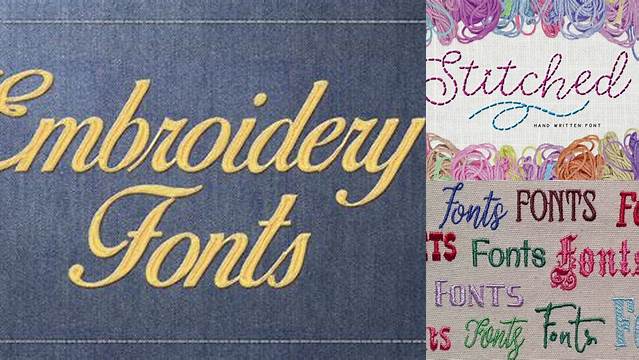
Best Hand Embroidery Fonts: Free Downloads
Hey guys! Are you looking to add a personal touch to your embroidery projects? One of the best ways to do that is by using unique and beautiful fonts. Finding the perfect font can really elevate your designs, making them stand out and feel extra special. So, let's dive into the world of hand embroidery fonts and where you can find some amazing free downloads. This article will cover everything you need to know about best hand embroidery fonts, helping you create stunning projects every time.
Hand Embroidery Fonts: An Overview
When we talk about hand embroidery fonts, we're referring to the different styles of lettering that can be stitched onto fabric. Unlike digital fonts, these are created by hand, stitch by stitch, giving them a unique, handmade quality. The best part? There's a font style for every project, from elegant scripts to playful block letters. Understanding the basics of hand embroidery fonts is crucial for selecting the right one for your needs. Whether you're personalizing a gift, creating wall art, or embellishing clothing, the font you choose can make a significant impact. We’ll explore various types of fonts, their characteristics, and how to use them effectively in your projects. Trust me; having a good grasp of these basics will take your embroidery to the next level. Think of it as adding your personal signature to each piece you create, making it truly one-of-a-kind. Plus, the possibilities are endless when you start experimenting with different styles and techniques. Let’s get started and discover the beautiful world of hand embroidery fonts!
Why Choose Hand Embroidery Fonts?
Why should you even bother with hand embroidery fonts when there are so many other options? Well, the charm of hand embroidery fonts lies in their handcrafted feel. They add a personal touch that you just can't get from machine-made designs. Imagine stitching a heartfelt message onto a baby blanket or a custom name on a tote bag. These are the kinds of details that make your projects truly special. Beyond the personal touch, hand embroidery fonts allow for a level of customization that's hard to match. You can adjust the size, thickness, and spacing of your letters to fit your design perfectly. Plus, you can mix and match different stitches to create unique textures and effects. In short, hand embroidery fonts are all about creativity and making your projects your own. It's about infusing your personality and style into every stitch. And let's be honest, there's something incredibly satisfying about creating something beautiful with your own two hands. It’s a way to slow down, relax, and enjoy the process of creating. So, if you're looking for a way to add that extra layer of thoughtfulness and care to your projects, hand embroidery fonts are the way to go.
Where to Find Free Hand Embroidery Fonts
Different Styles of Hand Embroidery Fonts
The world of hand embroidery fonts is vast and varied, offering a style for every project and personal taste. Let's take a look at some of the most popular styles you'll encounter. First, we have script fonts, which mimic the elegant flow of handwriting. These are perfect for adding a touch of sophistication to your embroidery. Think flowing monograms, delicate quotes, or personalized messages. Then there are block fonts, which are bold and geometric. These are great for projects where you want the lettering to stand out, such as banners, posters, or bold statements on clothing. Next up are serif fonts, characterized by the small decorative strokes at the end of the letters. These fonts tend to have a more traditional and formal feel. On the other hand, sans-serif fonts are clean and modern, without the serifs. These are ideal for contemporary designs and projects that need a minimalist touch. Finally, we have decorative fonts, which are all about adding flair and personality. These can include whimsical, floral, or abstract styles, perfect for projects that need a bit of extra pizzazz. Understanding these different styles will help you choose the best hand embroidery font for your specific needs. Each style brings its own unique character and feel to your project, so take some time to experiment and see what works best for you.
Script Hand Embroidery Fonts
Script hand embroidery fonts are a classic choice for adding elegance and a personal touch to your projects. These fonts mimic the fluid strokes of handwriting, making them perfect for delicate designs and heartfelt messages. Imagine stitching a beautiful script font onto a wedding gift, a baby blanket, or a personalized piece of wall art. The flowing lines and graceful curves of script fonts can truly elevate your embroidery work. When working with script hand embroidery fonts, it's essential to pay attention to the spacing and connections between letters. You want the letters to flow seamlessly into each other, creating a cohesive and polished look. There are many variations within the script font category, from traditional calligraphy-inspired styles to more modern and playful scripts. Some scripts are more formal, ideal for special occasions, while others are casual and whimsical, perfect for everyday projects. To get started with script hand embroidery fonts, look for free patterns online or experiment with your own handwriting. Practice stitching different scripts to find the ones you love and that suit your skill level. With a bit of practice, you'll be creating stunning script embroidery in no time. The beauty of script fonts is that they add a sense of intimacy and care to your creations, making them all the more special.
Block Hand Embroidery Fonts
If you're looking for a font that makes a statement, block hand embroidery fonts are the way to go. These fonts are bold, geometric, and perfect for projects where you want the lettering to stand out. Think banners, posters, tote bags, or anything where you need a strong, clear message. Block fonts are characterized by their clean lines and uniform thickness, making them easy to read and stitch. They're a great choice for beginners because the straightforward shapes are simpler to follow than more intricate script fonts. When using block hand embroidery fonts, consider the size and spacing of your letters. You'll want to make sure the letters are large enough to be easily visible but not so large that they overwhelm your design. Proper spacing is also crucial to ensure readability. Experiment with different stitches to add texture and dimension to your block font embroidery. A filled satin stitch can create a bold, solid look, while an outline stitch can give a more minimalist feel. You can also play with color to make your lettering pop. The versatility of block fonts makes them a staple in any embroiderer's font library. Whether you're spelling out a name, a quote, or a simple message, block fonts provide a clean and impactful way to do it.
Serif Hand Embroidery Fonts
Serif hand embroidery fonts bring a touch of tradition and formality to your stitching projects. These fonts are distinguished by the small decorative strokes, or serifs, that extend from the ends of the letters. This detail gives them a classic and polished look, making them ideal for projects where you want to convey a sense of elegance and sophistication. Imagine stitching a refined monogram on a handkerchief or a classic quote on a decorative pillow. Serif fonts are perfect for adding a timeless quality to your embroidery. When working with serif hand embroidery fonts, it's important to pay attention to the details. The serifs themselves can be delicate and intricate, so you'll want to choose stitches that can capture their nuances. Split stitch and back stitch are excellent choices for outlining serifs, while satin stitch can fill in the letter bodies. Spacing is also crucial with serif fonts. You'll want to ensure that the letters are evenly spaced and that the serifs don't overlap or crowd each other. Consider the overall design and how the font complements the rest of your project. Serif fonts pair well with traditional embroidery motifs and classic color palettes. Whether you're working on a family heirloom or a special gift, serif fonts can add a touch of timeless beauty to your hand embroidery.
Sans-Serif Hand Embroidery Fonts
Sans-serif hand embroidery fonts offer a modern and minimalist aesthetic to your embroidery projects. Unlike serif fonts, these fonts lack the decorative strokes at the ends of the letters, resulting in a clean and simple look. This makes them perfect for contemporary designs, bold statements, and projects where clarity is key. Think of stitching a motivational quote on a gym bag, a personalized name on a modern baby blanket, or a sleek monogram on a minimalist tote. Sans-serif fonts are versatile and can be used in a wide range of projects. When working with sans-serif hand embroidery fonts, the focus is on simplicity and readability. The clean lines of the letters make them easy to stitch, even for beginners. You can use a variety of stitches to outline or fill in the letters, depending on the look you want to achieve. Back stitch and stem stitch are great for creating clean outlines, while satin stitch can fill in the letters for a bolder effect. Spacing is crucial with sans-serif fonts. You'll want to ensure that the letters are evenly spaced to maintain readability. Consider the overall design and how the font complements the other elements of your project. Sans-serif fonts pair well with modern motifs, geometric patterns, and bold color combinations. Whether you're creating a contemporary piece of art or a practical item, sans-serif fonts can add a touch of modern elegance to your hand embroidery.